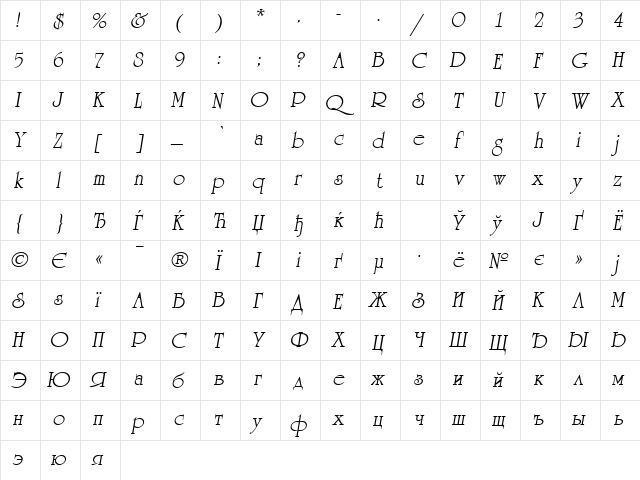
AGReverance Oblique
Design Context for AGReverance Typeface
AGReverance takes a measured approach to typography — its balanced proportions and neutral character make it a reliable workhorse for both digital and print work. Its italic angle brings a sense of urgency and motion to the letterforms.